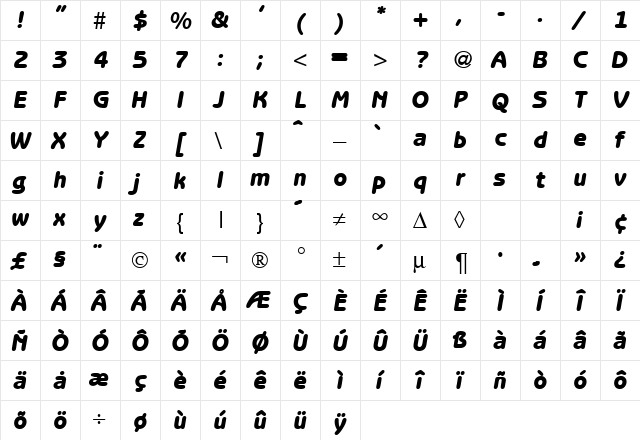
BenjaminSansHeavy RegularItalic
Design Context for BenjaminSansHeavy Typeface
BenjaminSansHeavy offers clean, dependable letterforms without strong stylistic allegiance, making it a practical choice for designers who need flexibility. The dynamic lean of this cut emphasises speed and emphasis in any layout.
Pro Tip: Use BenjaminSansHeavy for emphasis, pull quotes, and subheadings where its slanted energy can add rhythm to the layout.